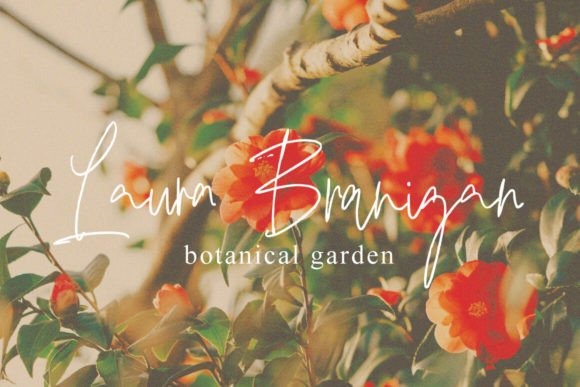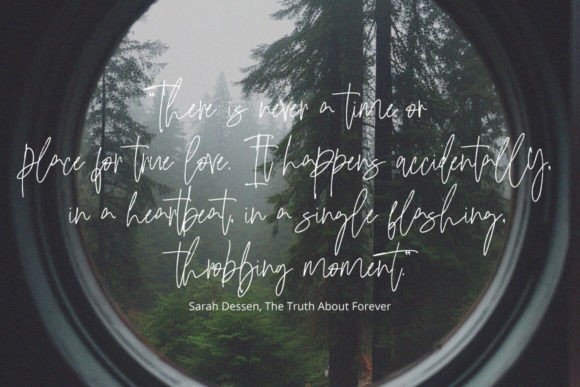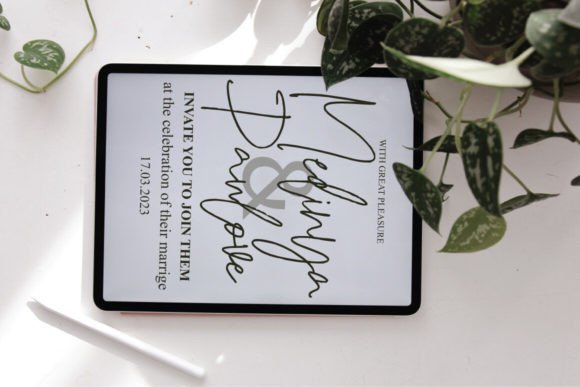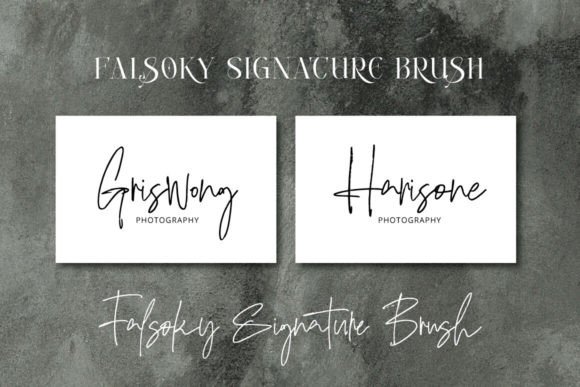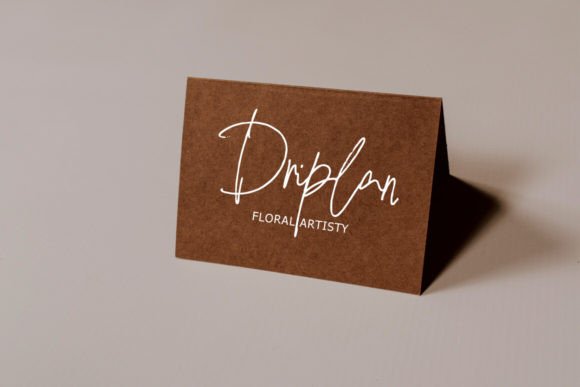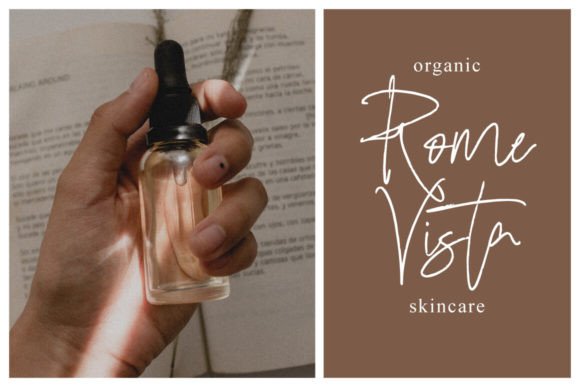
Introduction to Falsoky Font
As designers, we’ve all been there – staring at a blank canvas, searching for the perfect font to bring our creative project to life. The right font can make all the difference, elevating our design from good to great. And that’s exactly where the Falsoky Font comes in – a stunning, high-quality font that’s sure to make your designs stand out.
With its beautiful, handmade signature style and decorative characters, the Falsoky Font is a design resource that’s hard to resist. Whether you’re working on a greeting card, branding materials, or business cards, this font is sure to add a touch of elegance and sophistication to your work.
But what really sets the Falsoky Font apart is its versatility. With 250+ glyphs and a range of Open Type features, this font offers endless possibilities for creative expression. And with a transparent background, you can easily combine it with other design elements to create a truly unique look.
Key Features of Falsoky Font
- Unique characteristics include intricate details and ornate designs, adding an artistic flair to any project.
Honest Review: Falsoky Font
As a designer, I’m always on the lookout for high-quality design resources that can elevate my creative projects. I recently had the chance to work with the Falsoky Font, and I have to say, it’s been a game-changer.
What works well: ✨ The Falsoky Font is incredibly versatile, making it perfect for a wide range of creative projects. Its clean and modern design allows it to seamlessly integrate into any layout, from business cards to brochures. I’ve also been impressed by the font’s high quality, which ensures crisp and clear text even at smaller sizes.
Overall, I’m thoroughly impressed with the Falsoky Font. It’s a valuable addition to any designer’s toolkit, and I wouldn’t hesitate to recommend it to colleagues and clients alike.
One potential limitation: ⚠️ The font may not be suitable for projects that require a more traditional or classic look. However, for modern and sleek designs, the Falsoky Font is an excellent choice.
Tips for Getting the Most Out of Falsoky Font
Use the Falsoky Font with a transparent background to create a clean and minimalist look. Experiment with different font sizes and styles to add visual interest to your design. You can also use the font in combination with other design elements to create a unique and eye-catching design.
The Falsoky Font is perfect for a variety of creative projects, including logos, business cards, and social media graphics. You can also use the font to create a consistent brand identity across multiple platforms.